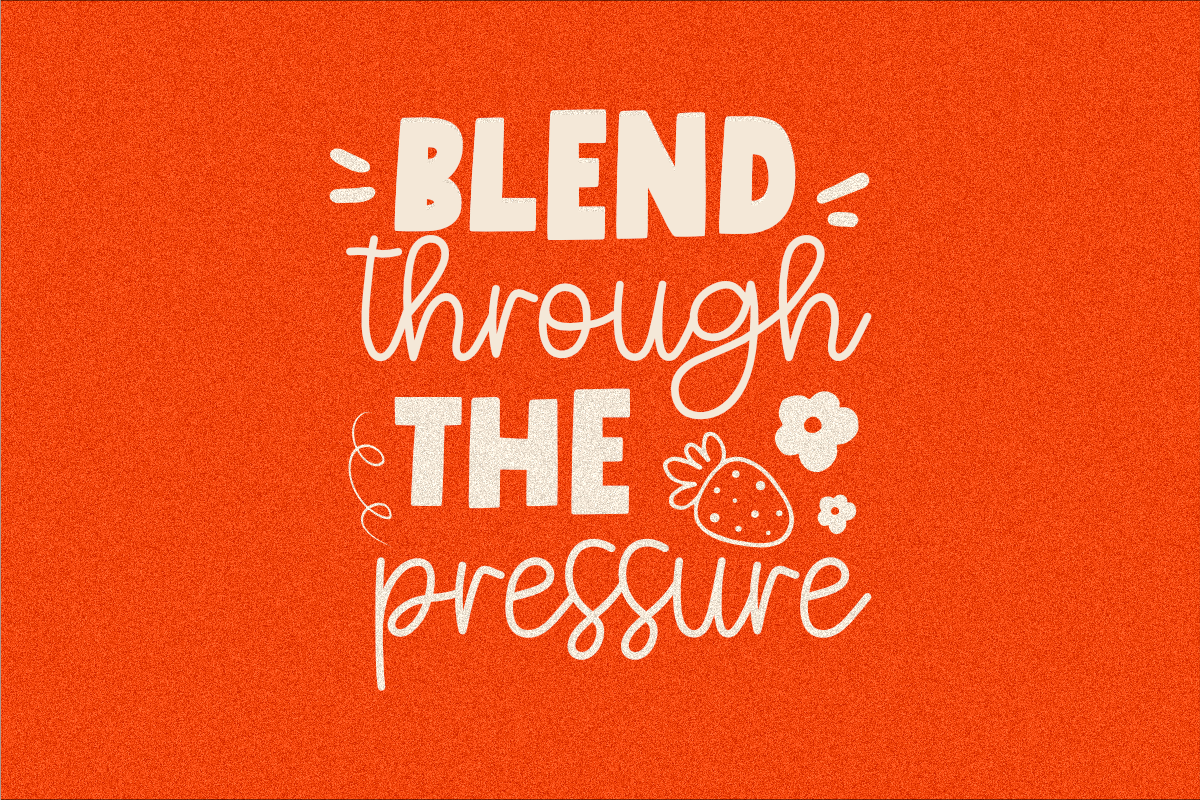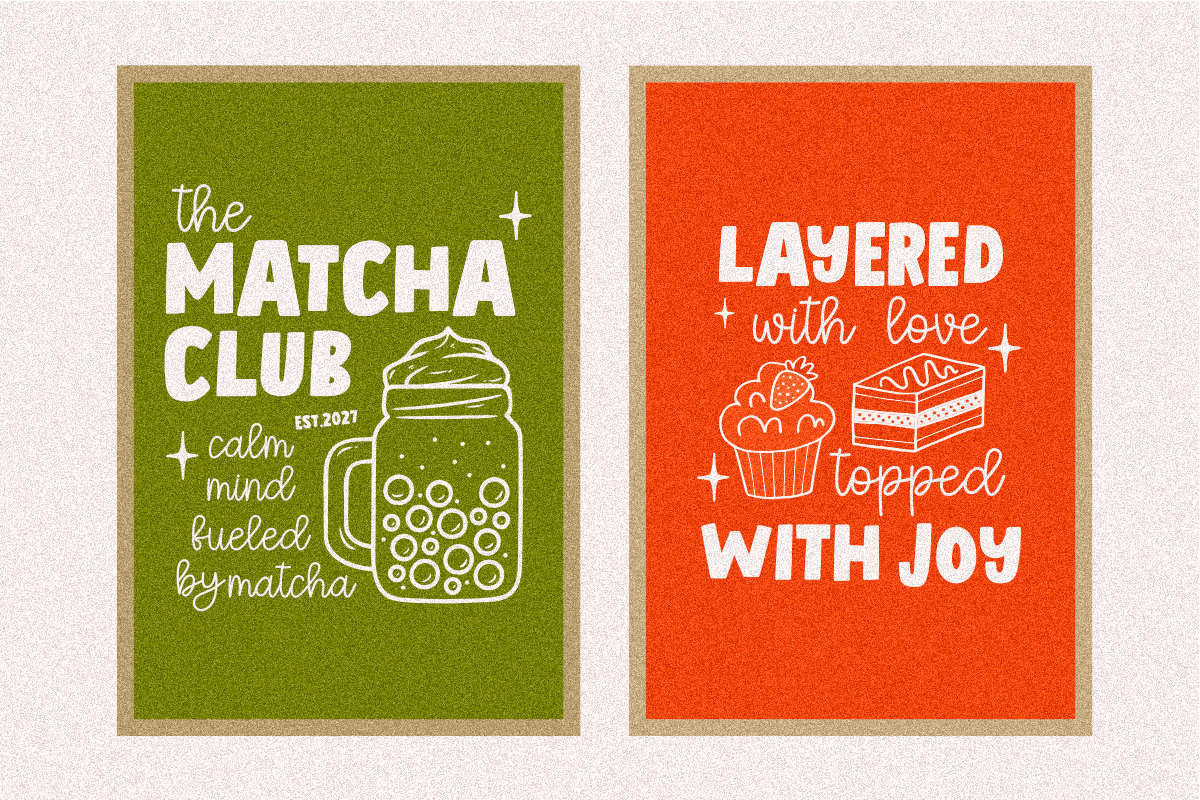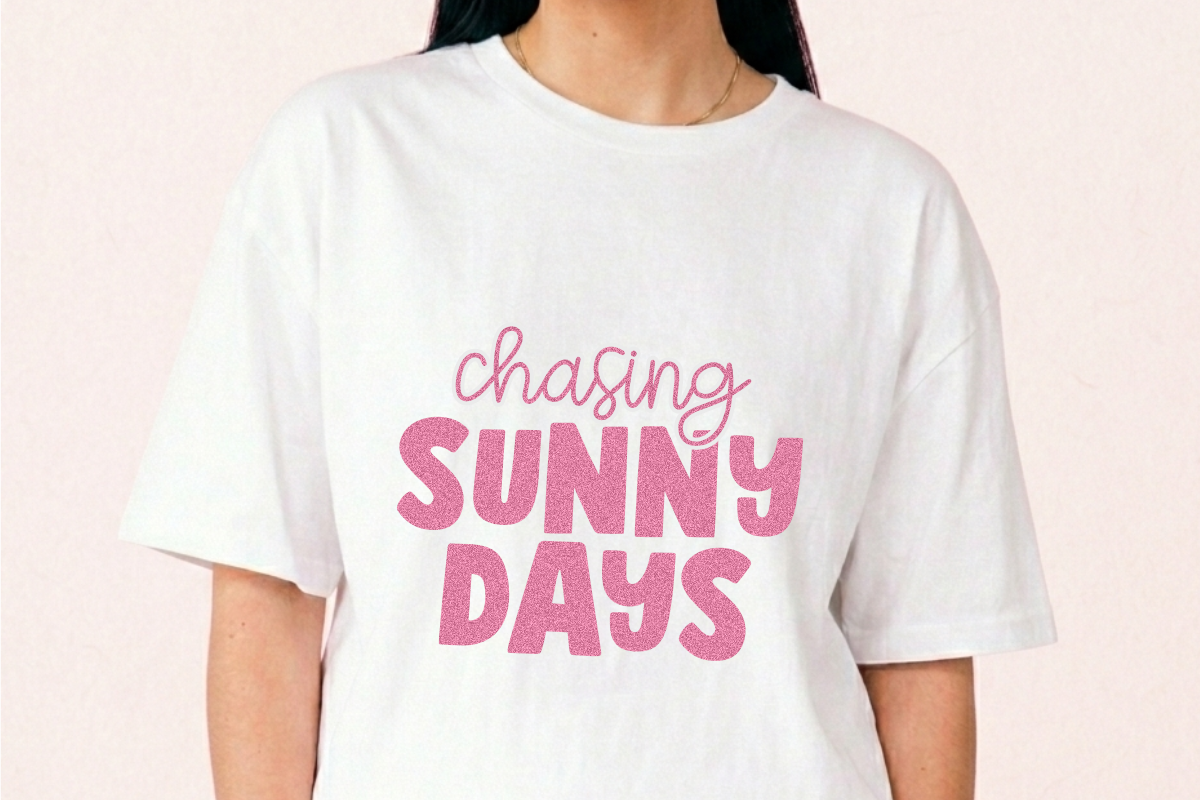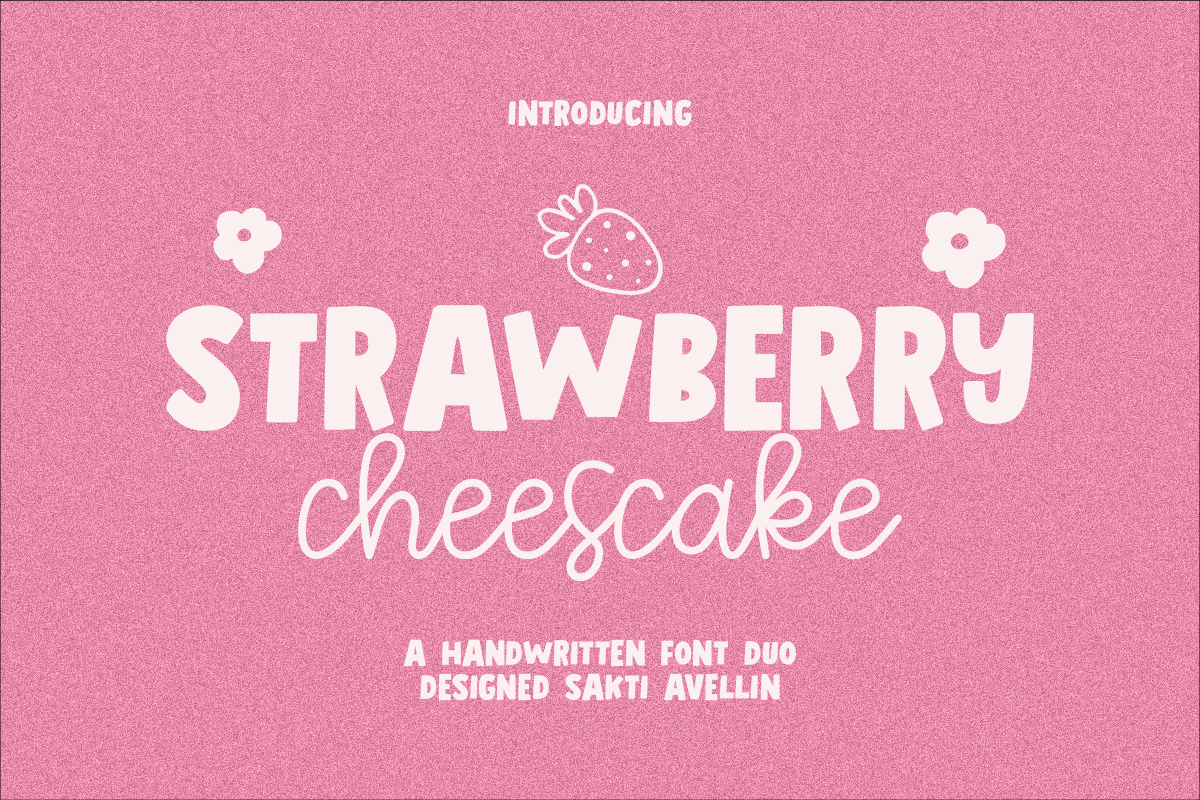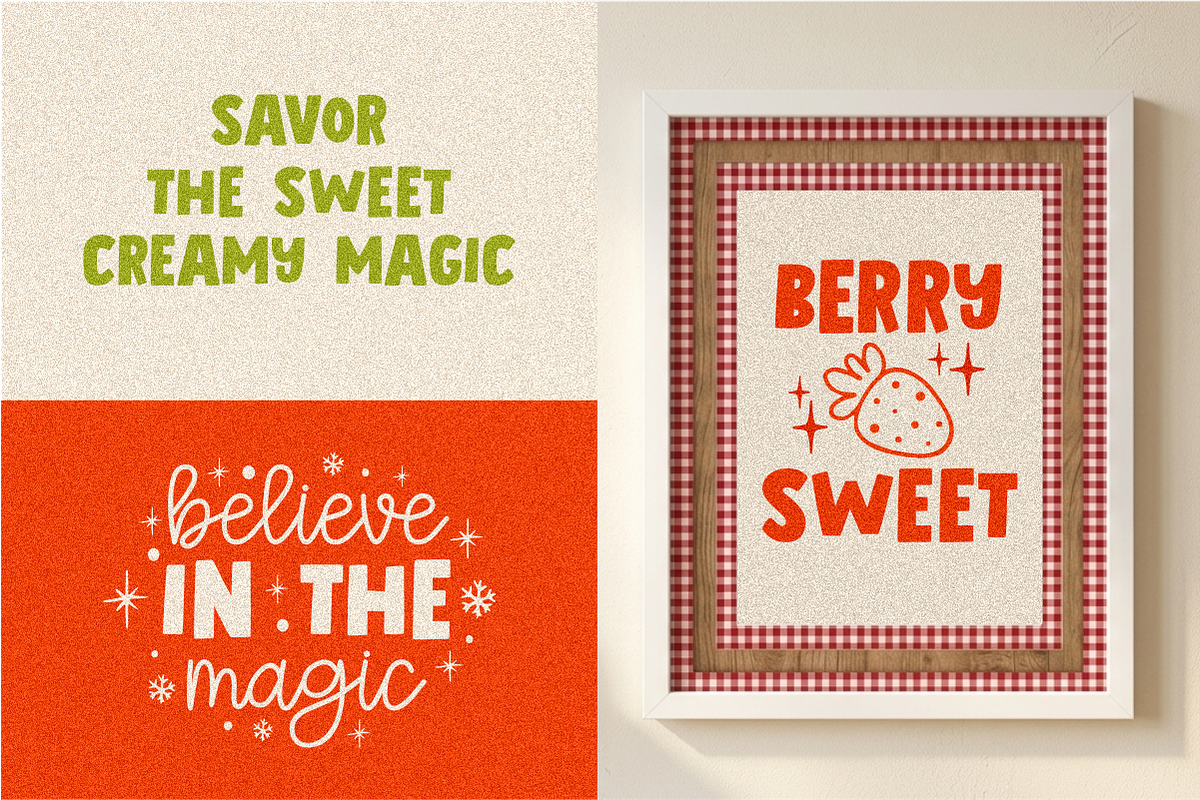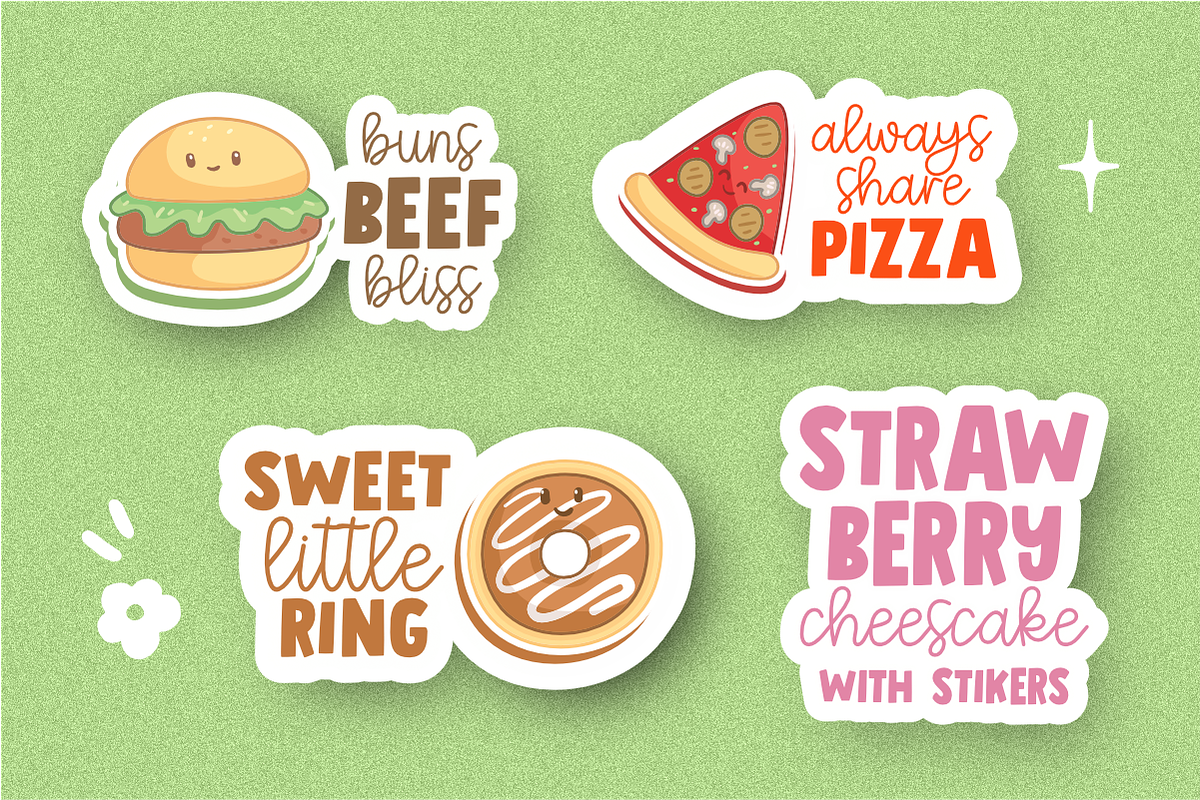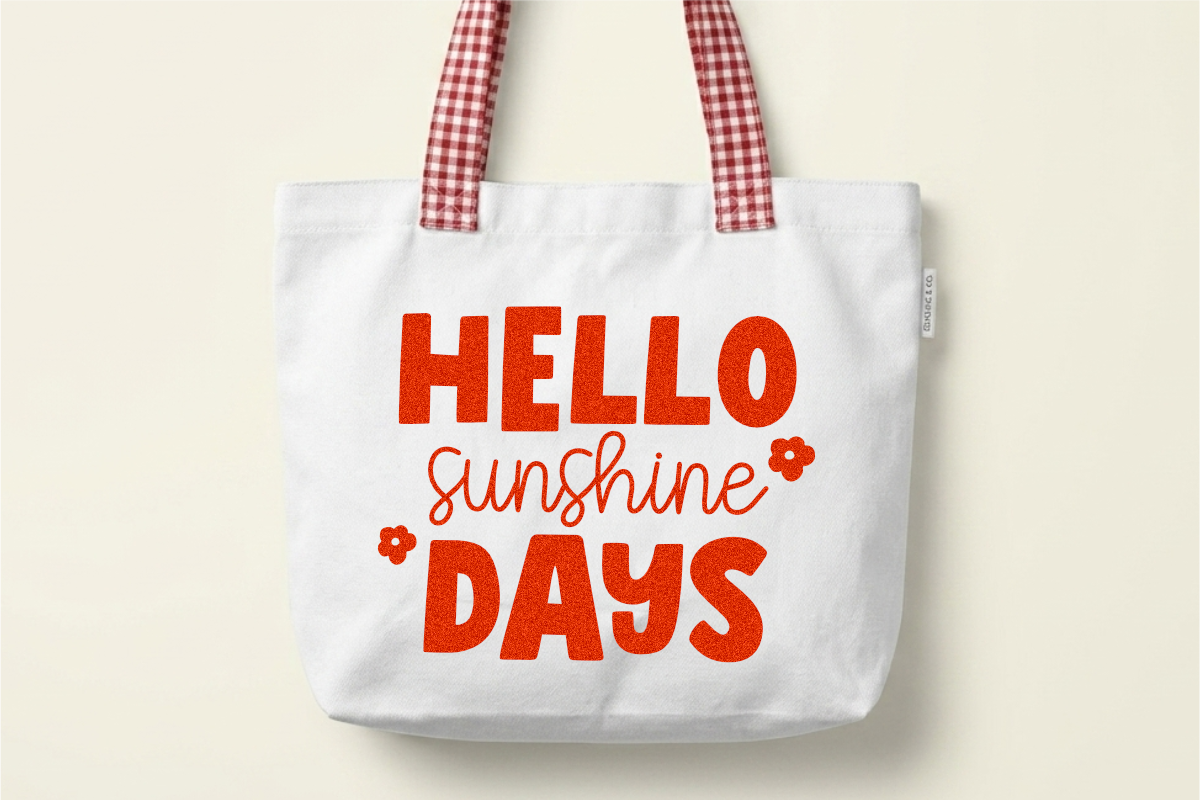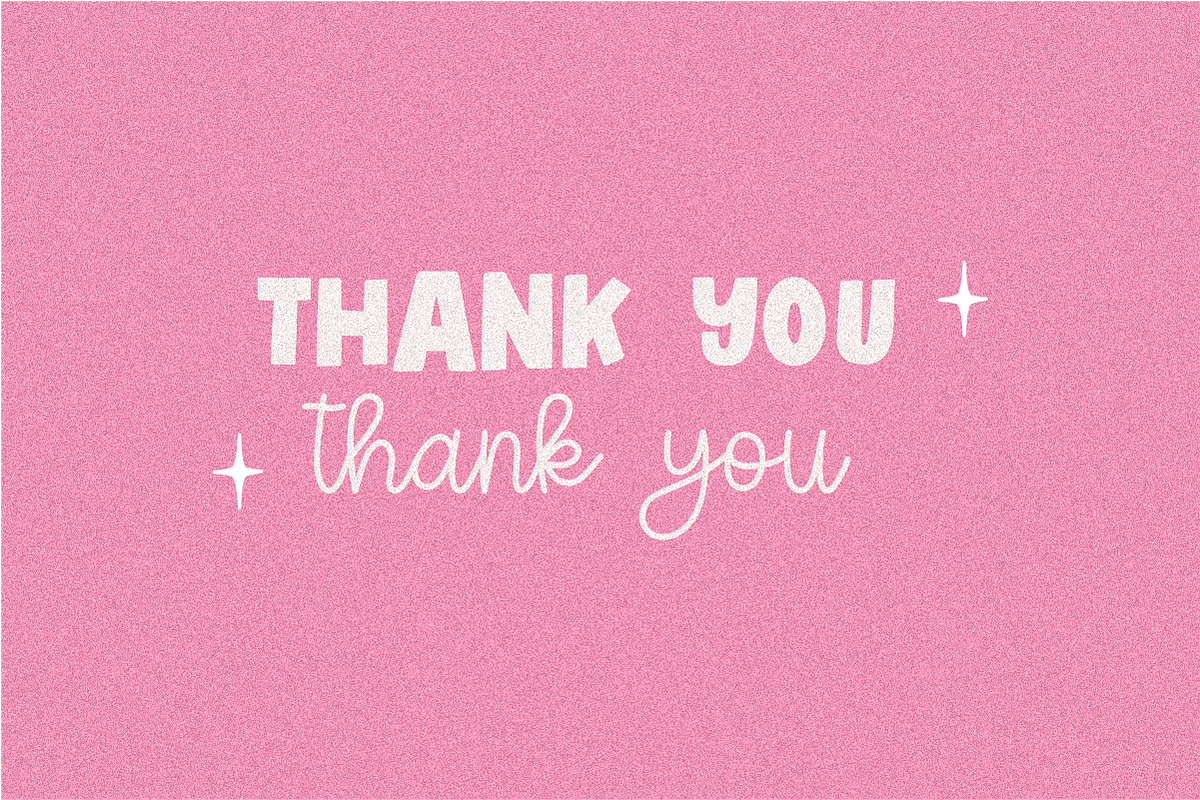
Strawberry Cheescake - Font Duo
Strawberry Cheesecake is a delightful and charming handwritten font duo designed to bring a sweet, organic charm to your creative projects. This lovely pairing features a bold, bouncy display typeface for "STRAWBERRY" and a smooth, flowing handwritten script for "cheesecake," making it an ideal choice for bakery branding, cute stickers, birthday invitations, children's products, and cheerful social media graphics. Its balanced and organic aesthetic ensures your designs feel warm, inviting, and full of personality. Whether you are creating festive packaging, apparel, or whimsical stationery, Strawberry Cheesecake adds a charming touch to every design.